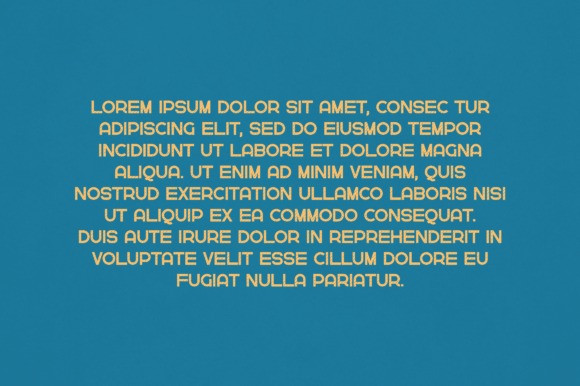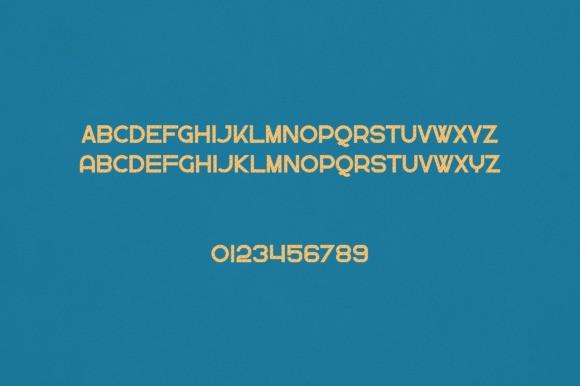
Skylar Font
Skylar Font is an elegant and versatile display font that will make your typography truly unique! It will enchant every logo, branding, headline, or plain text!